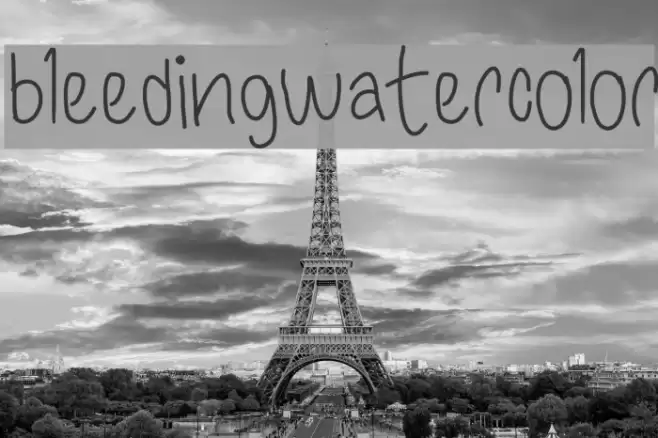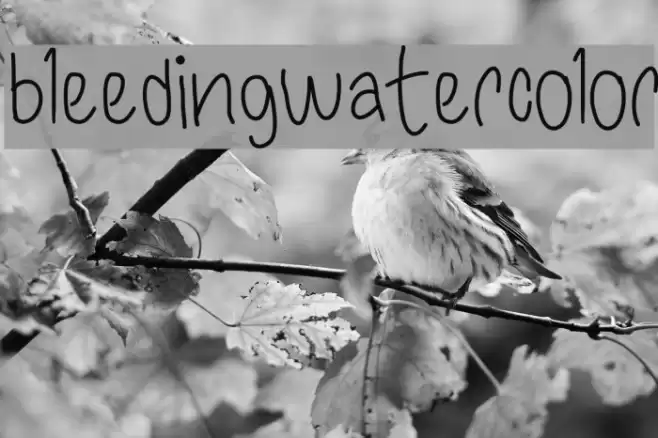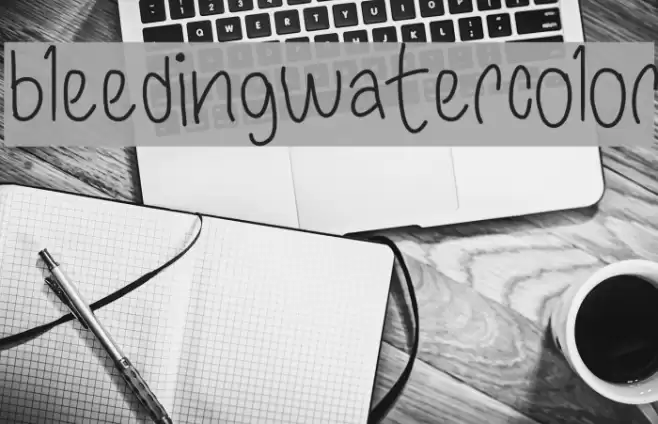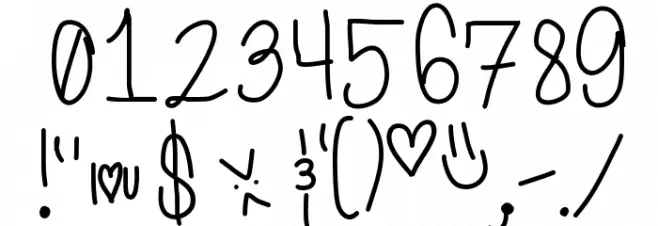
bleedingwatercolor Font
bleedingwatercolor Description
This font features a playful and casual handwritten style, characterized by its irregular and slightly whimsical letterforms. The strokes are uneven, giving it a natural and organic feel, reminiscent of a personal note or a quick sketch. The uppercase and lowercase letters maintain a consistent style, with rounded edges and a slight tilt, adding to its informal charm. The numerals and special characters follow the same aesthetic, ensuring a cohesive look across all text elements. This font exudes a friendly and approachable vibe, making it suitable for projects that aim to convey warmth and personality.
A playful, casual handwritten font with irregular, whimsical strokes from Uncategorized fonts.
- Proposed Projects: Ideal for greeting cards, personal blogs, children's books, and creative branding projects.
- Overall Style: Casual, Playful
- Use Case: Headlines, Informal text, Creative projects